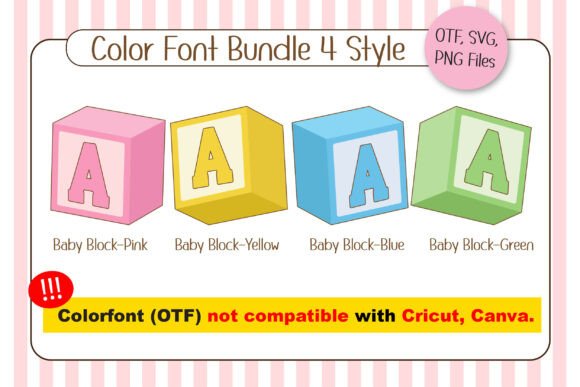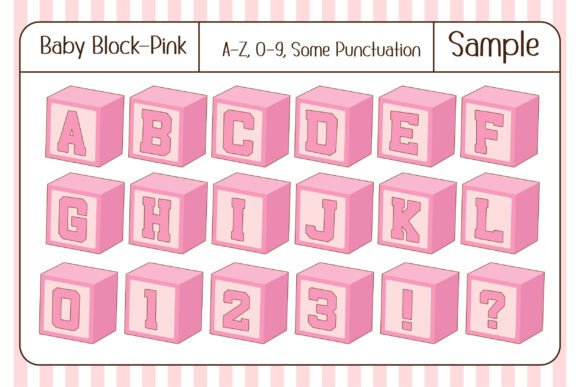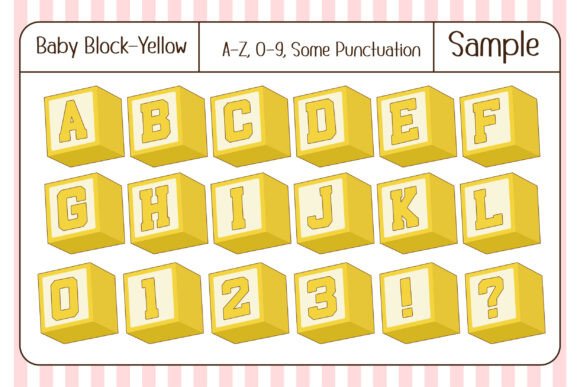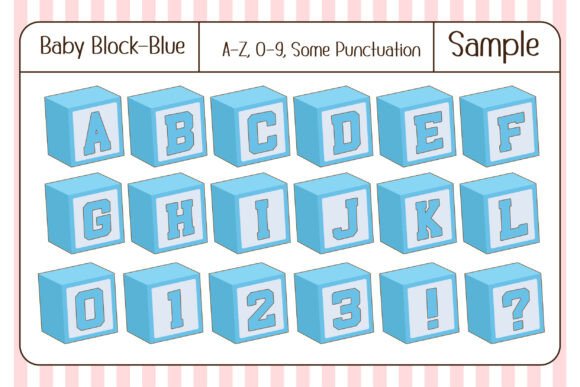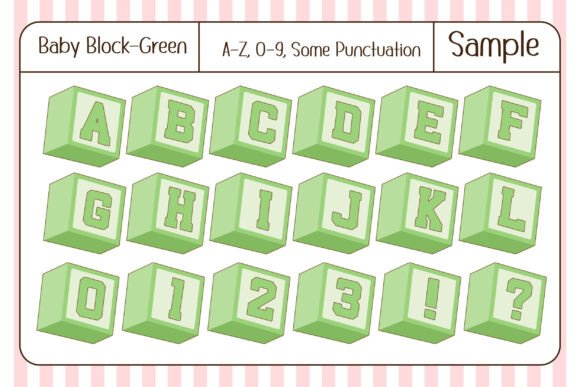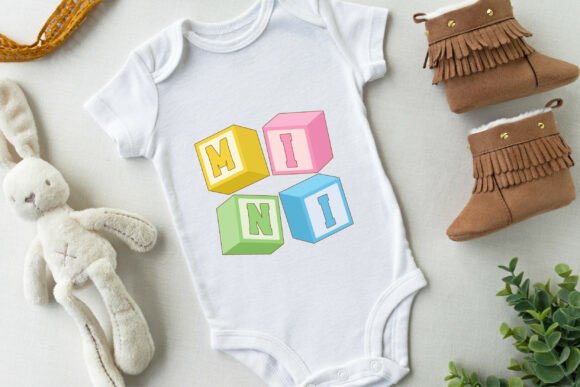
Baby Block Font: A Playful and Adorable Addition to Your Designs
Are you looking for a font that captures the joy of childhood learning and creativity? Look no further than the Baby Block Font, a playful and adorable font inspired by classic alphabet toy blocks for children. This 4 Color Font combines a bold sans serif style with soft pastel colors and bright cheerful tones, making it perfect for school-themed projects, kids’ learning materials, classroom decorations, T-shirt designs, children’s merch, and DIY crafts.
The Inspiration Behind Baby Block Font
The Baby Block Font is inspired by the classic alphabet toy blocks that have been a staple in children’s playrooms for generations. These blocks are not only fun and educational but also provide a great way for children to learn and develop their fine motor skills. The font takes the playful and whimsical feel of these blocks and combines it with a bold sans serif style, creating a unique and modern look that’s perfect for designers and crafters.
Key Features of Baby Block Font
- 4 Color Font: The Baby Block Font comes with four different colors, allowing you to add a pop of color to your designs. The soft pastel colors and bright cheerful tones are sure to capture the attention of your audience.
- Playful and Adorable: The font is designed to be playful and adorable, making it perfect for kids’ learning materials, children’s merch, and DIY crafts.
- Bold Sans Serif Style: The bold sans serif style of the font gives it a modern and fun look that’s perfect for designers and crafters.
- School-Themed Projects: The font is perfect for school-themed projects, including classroom decorations, T-shirt designs, and kids’ learning materials.
Uses for Baby Block Font
The Baby Block Font is versatile and can be used for a variety of projects, including:
- Kids’ Learning Materials: The font is perfect for creating educational materials for kids, including alphabet charts, number lines, and shape charts.
- Classroom Decorations: The font can be used to create colorful and engaging classroom decorations, including bulletin boards, posters, and charts.
- T-Shirt Designs: The font is perfect for creating fun and playful T-shirt designs for kids and adults alike.
- Children’s Merch: The font can be used to create a variety of children’s merchandise, including stickers, coloring books, and activity sheets.
- DIY Crafts: The font is perfect for DIY crafters who want to add a personal touch to their projects, including scrapbooking, card making, and paper crafting.
Tips for Using Baby Block Font
Here are a few tips for using the Baby Block Font in your designs:
- Mix and Match Colors: Don’t be afraid to mix and match the four different colors to create a unique and eye-catching design.
- Use with Images: The font pairs well with images of children, toys, and other playful illustrations.
- Experiment with Layouts: Try out different layouts and arrangements to create a visually appealing design.
- Keep it Simple: Don’t overcomplicate your design. The Baby Block Font is perfect for simple and playful designs.
The Baby Block Font is a playful and adorable addition to any design. With its bold sans serif style, soft pastel colors, and bright cheerful tones, it’s perfect for school-themed projects, kids’ learning materials, classroom decorations, T-shirt designs, children’s merch, and DIY crafts. Whether you’re a designer or crafter, this font is sure to bring a smile to your face and add a touch of childhood magic to your designs.